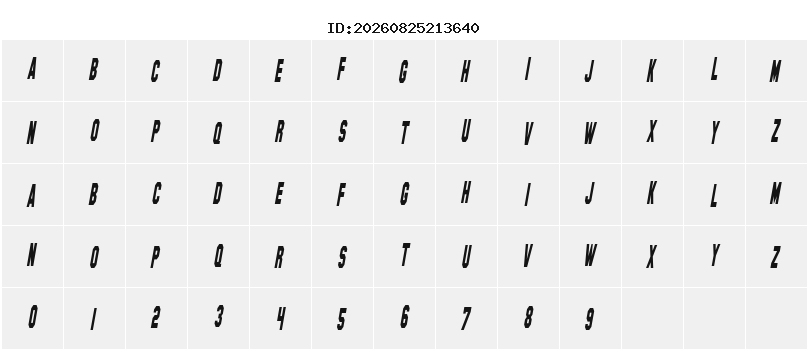
SF Hollywood Hills Condensed Preview
• Font Name: SF Hollywood Hills Condensed
• Font ID: ShyFontsTypeFoundry,: SF Hollywood Hills Condensed Italic: 1999
• Full Font Name: SF Hollywood Hills Condensed Italic
SF Hollywood Hills Condensed.ttf is a modern, elegant sans-serif font designed for ultimate readability and visual harmony. Perfect for branding, headlines, web design, and print materials.